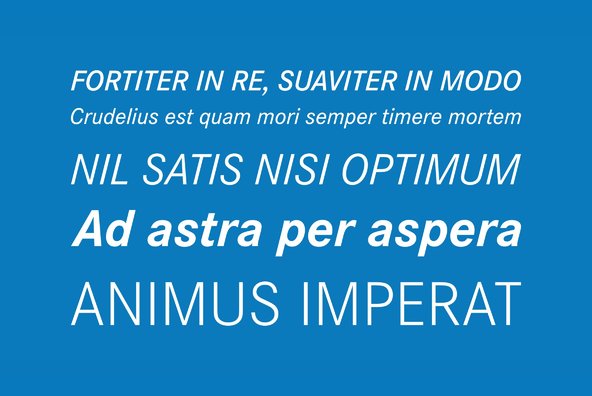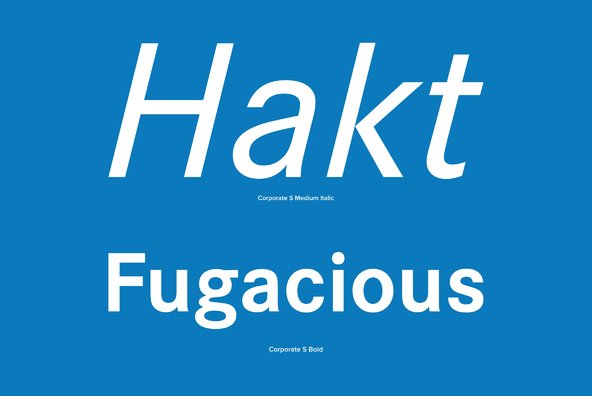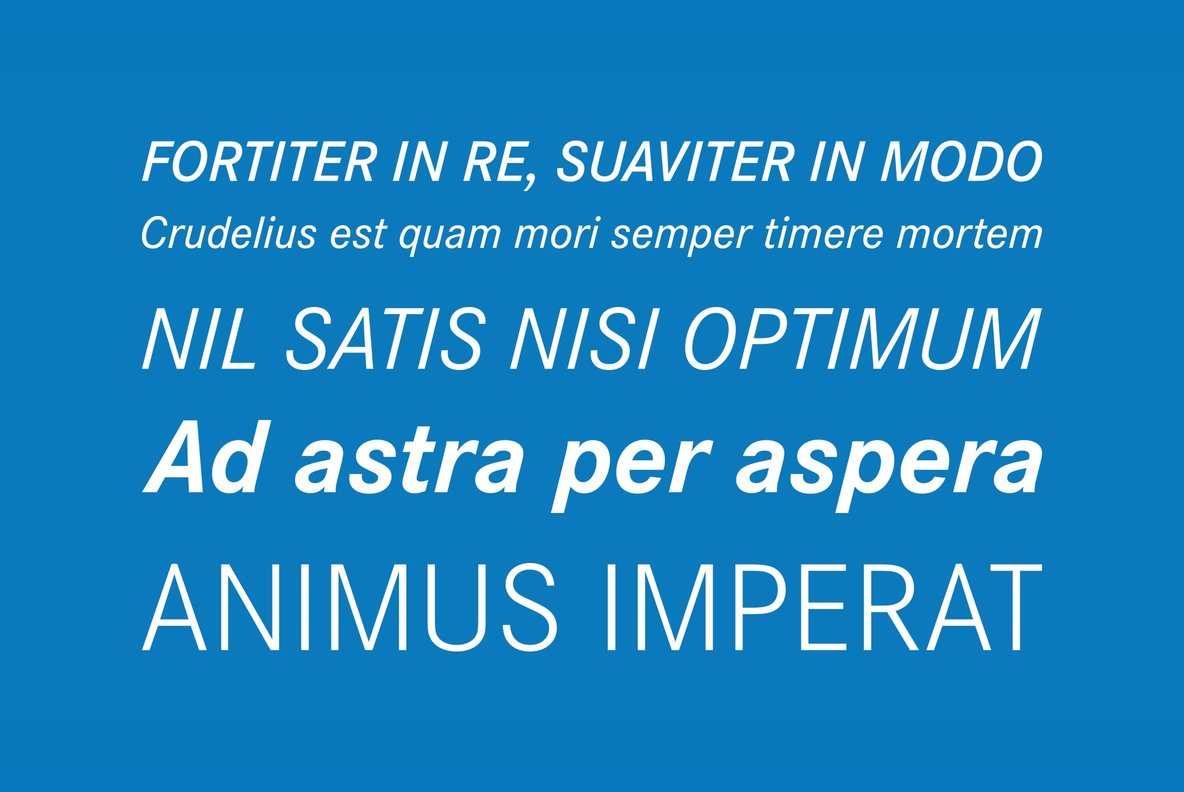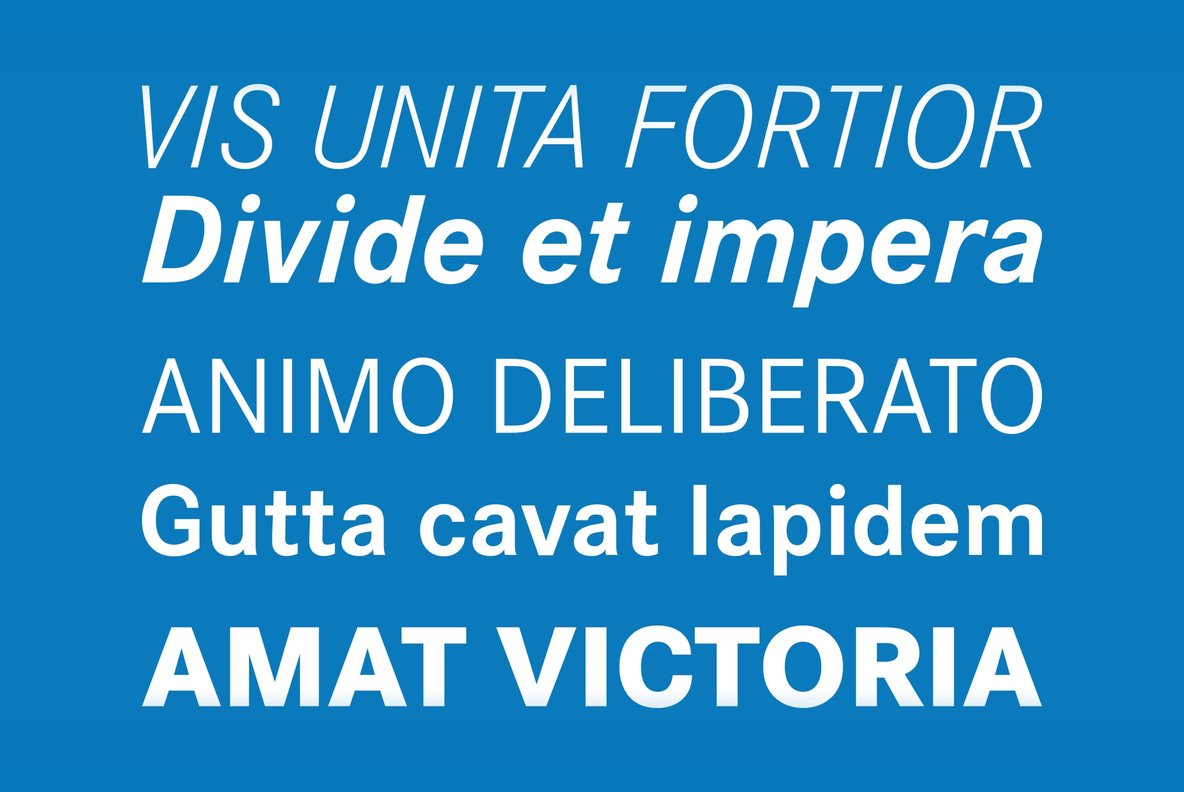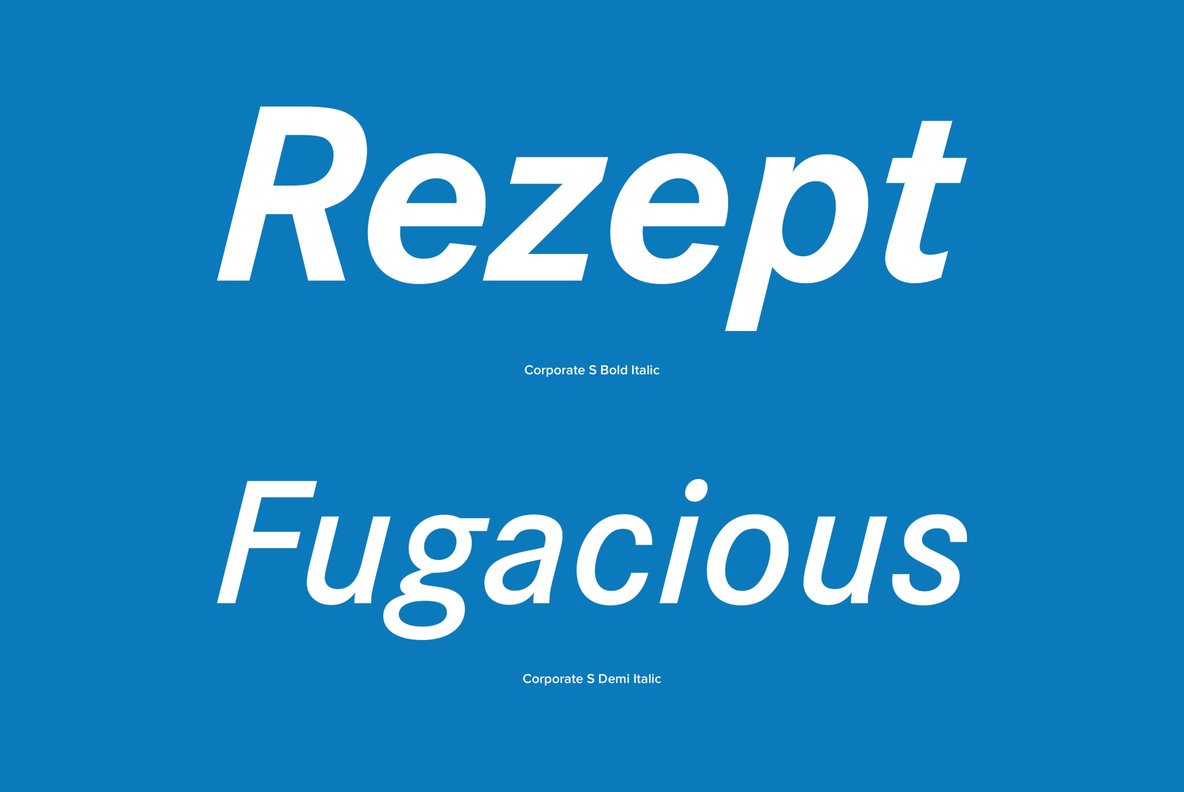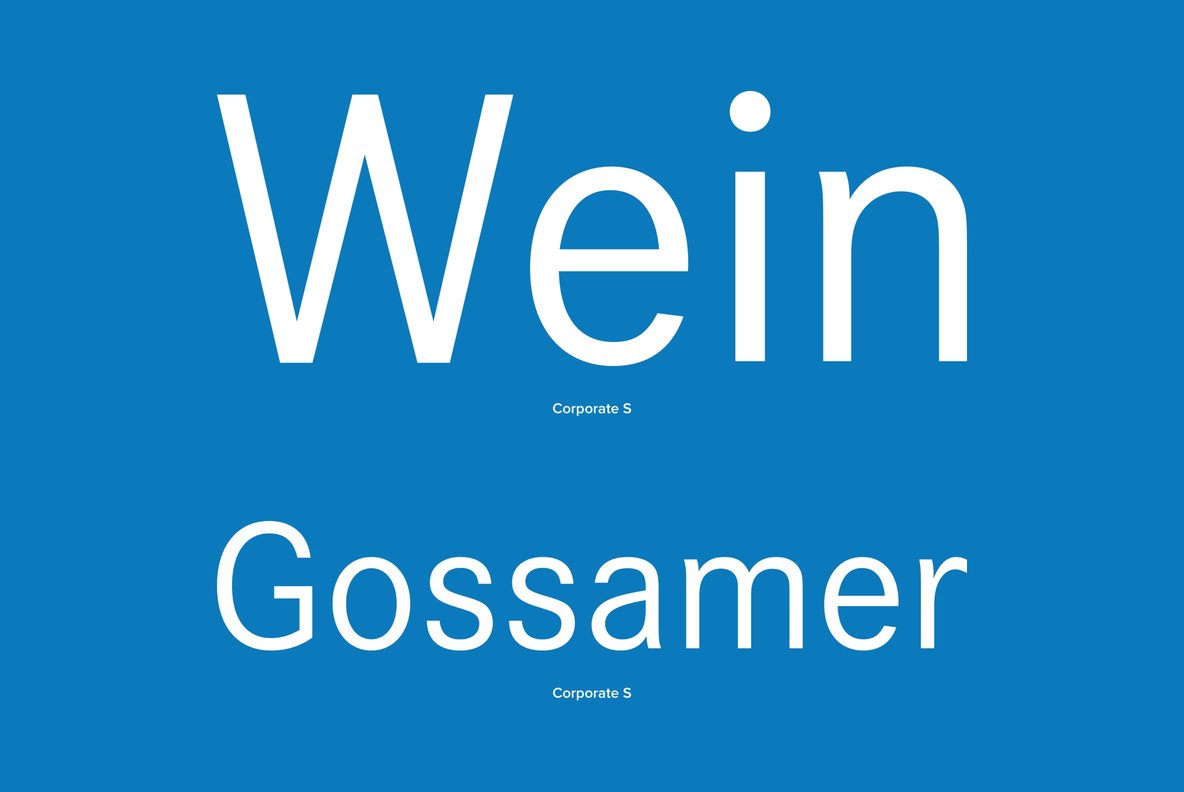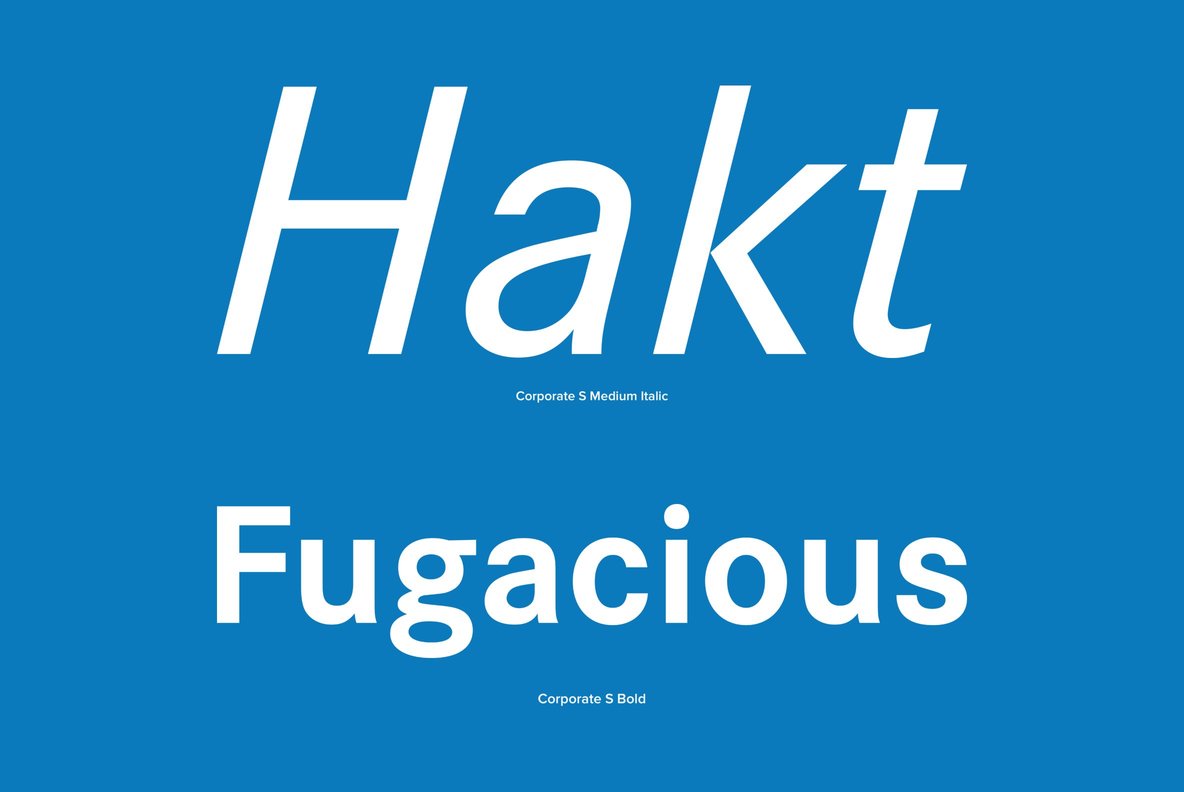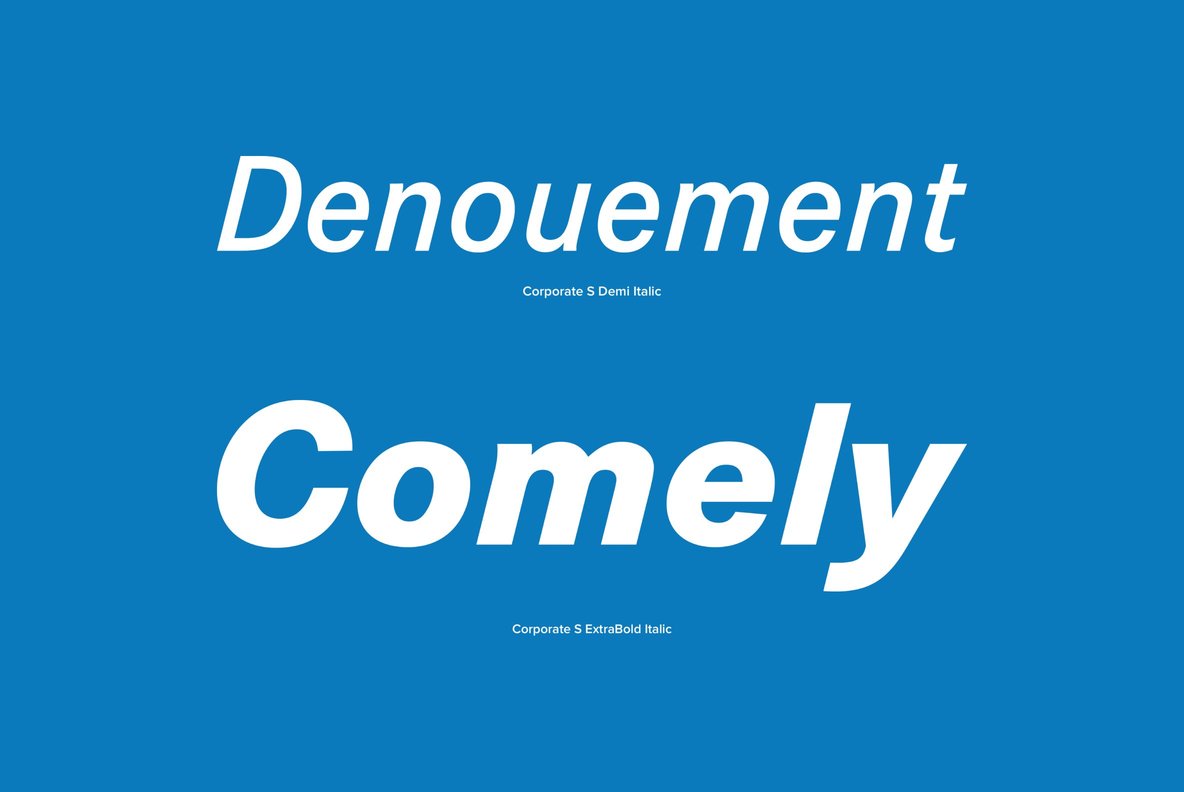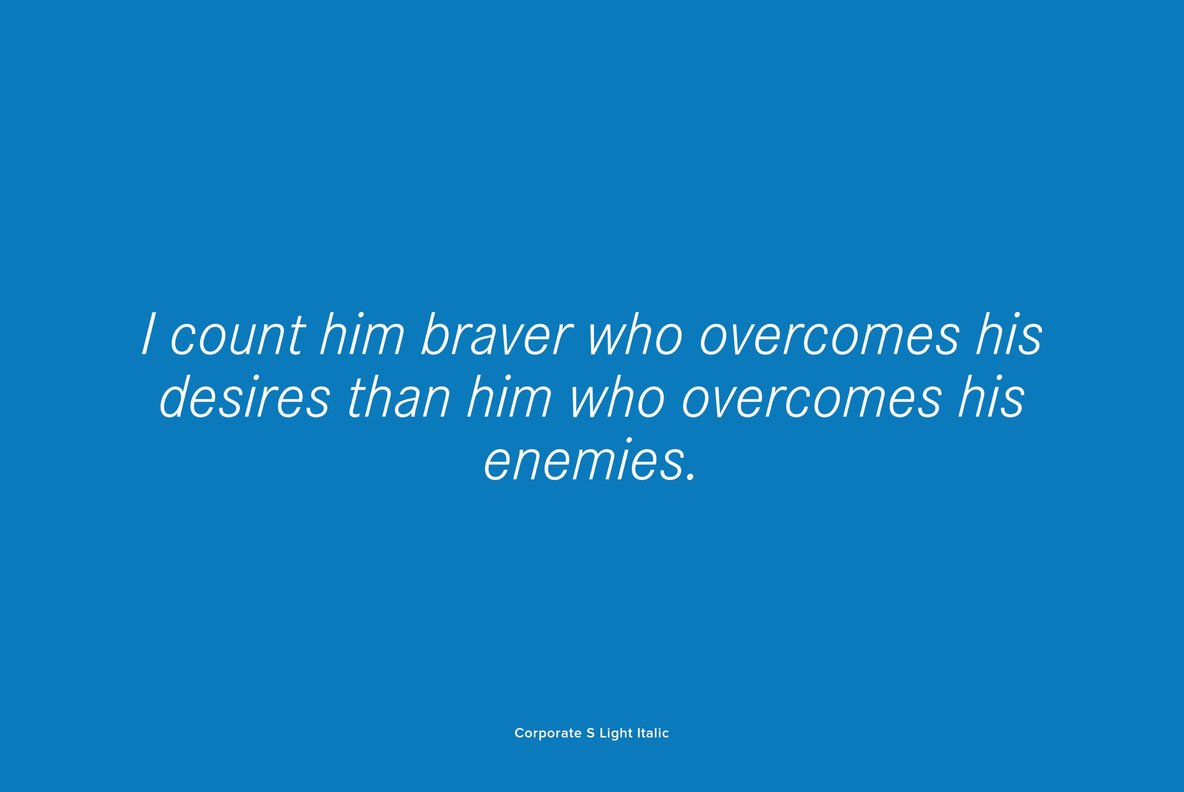
Corporate S
The Corporate ASE typeface trilogy was designed by Prof. Kurt Weidemann, a well-known German designer and typographer, from 1985 until 1990.
This superb trilogy consisting of the Corporate A (Antiqua), Corporte S (Sans Serif), and Corporate E (Egyptian) is a design program of classical quality, perfectly in tune with each other. Weidemann says: "My ASE trilogy, quite like triplets, is in perfect harmony and covers all needs of modern typography!"
Meanwhile, URW++ enhanced the Corporate ASE family in regular, bold, italic, and bold italic by Greek, Cyrillic, and all additional Latin characters to cover Eastern Europe including the Baltic Rim, Romania and Turkey. Corporate ASE in regular, bold, italic, and bold italic is now available in the WGL 4 character complement.